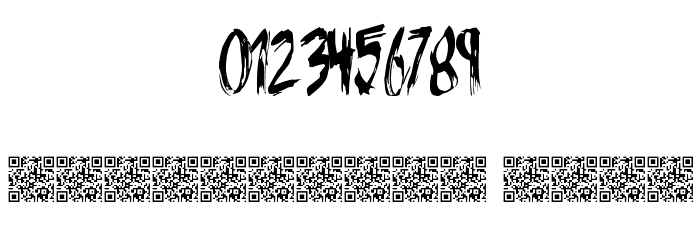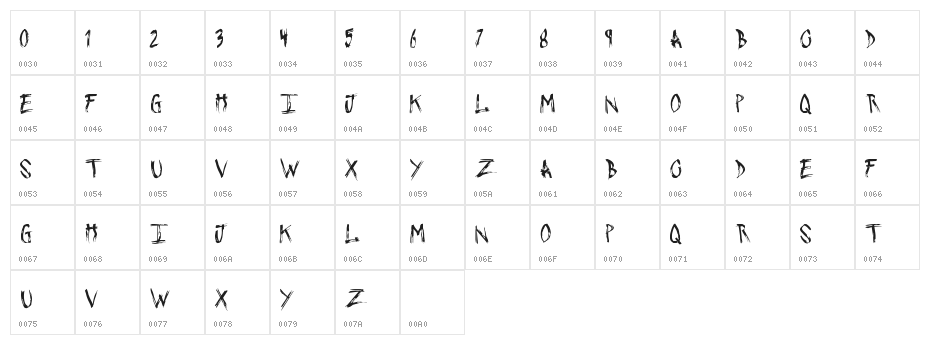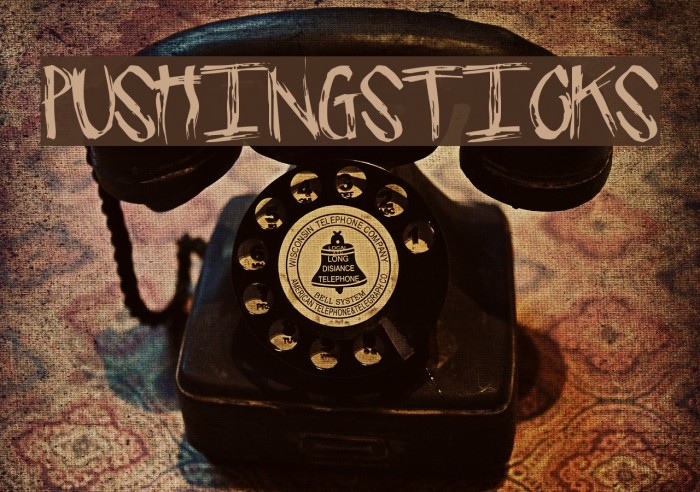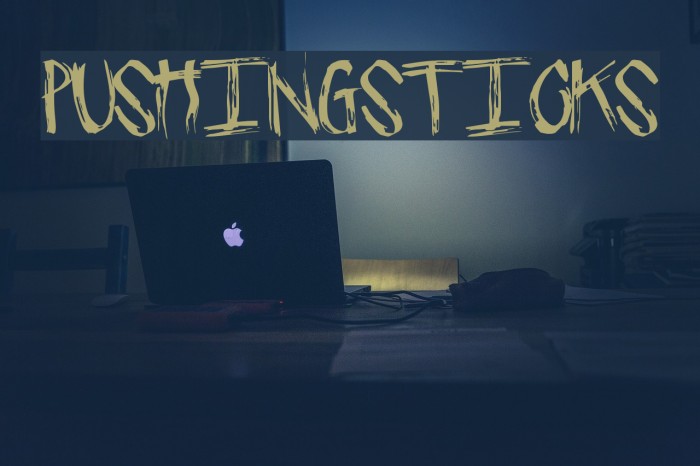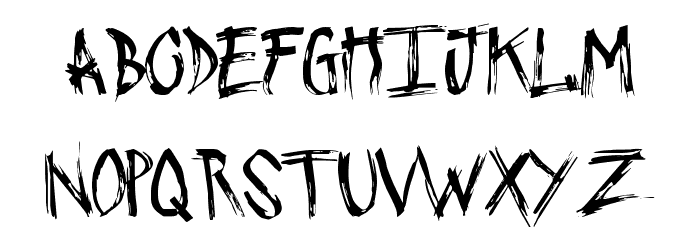
PushingSticks Font
PushingSticks Description
This font features a bold and edgy design with a hand-drawn appearance. Each character is crafted with rough, jagged edges that give it a dynamic and energetic feel. The strokes vary in thickness, creating a sense of movement and intensity. The overall look is reminiscent of graffiti or street art, making it ideal for projects that require a rebellious or unconventional aesthetic. The uppercase and lowercase letters maintain a consistent style, while the numbers and special characters integrate seamlessly with the alphabet, ensuring versatility in design applications.
| Overall Style | Modern, Urban |